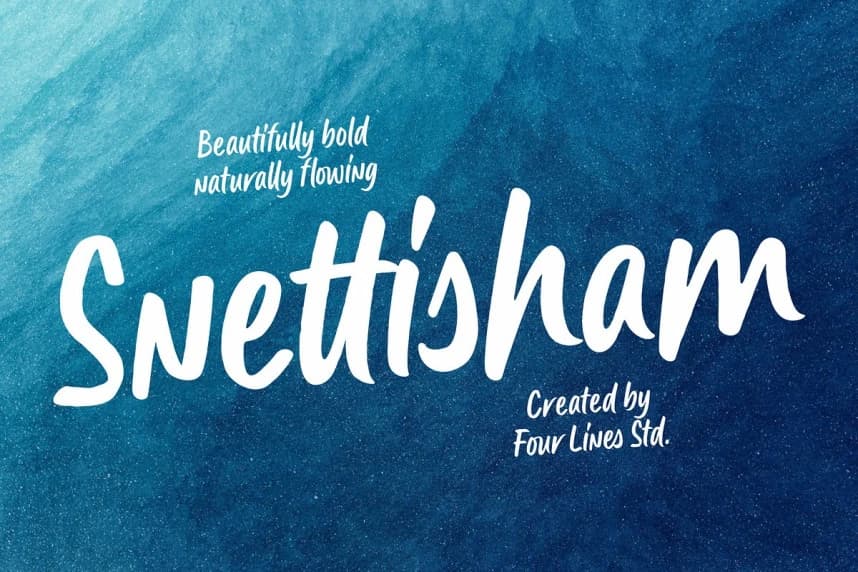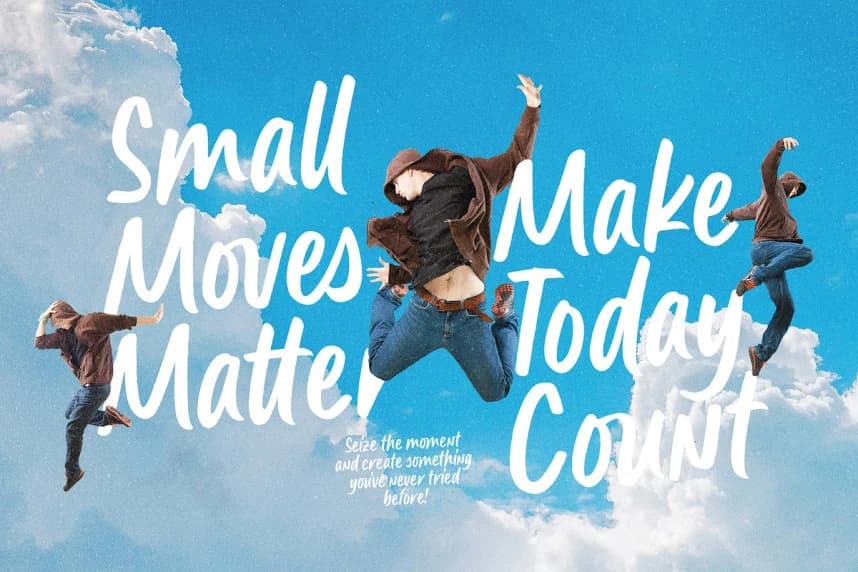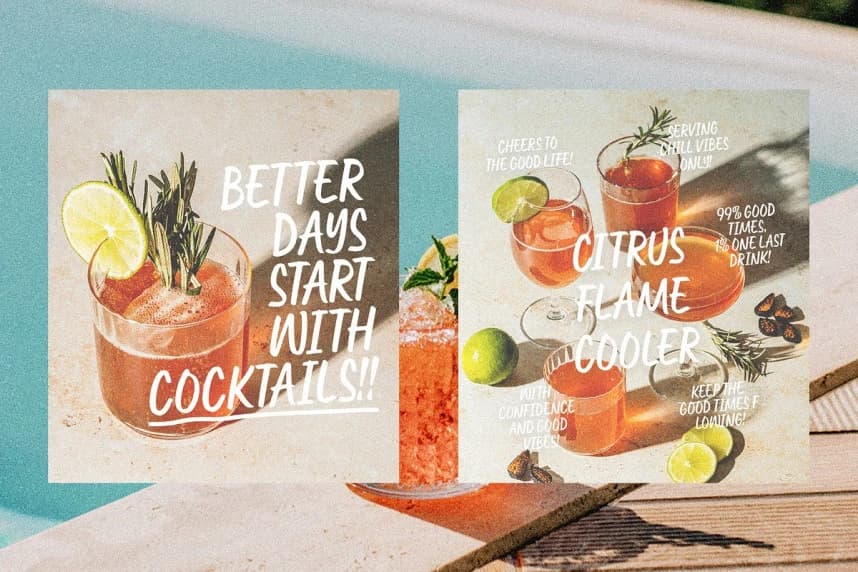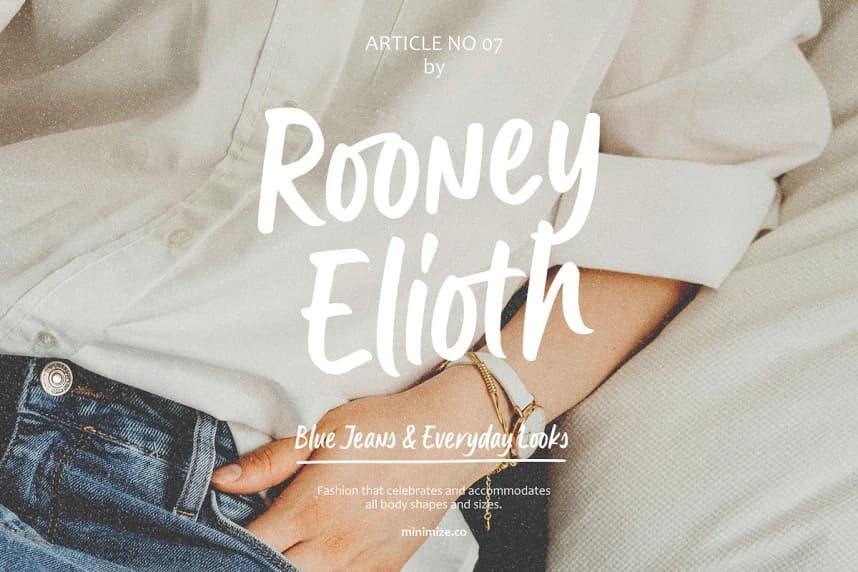
Snettisham Script Font
Snettisham Script Font is a bold handwritten script with a natural, smooth flow and full of character. Every letter feels lively with a casual, warm, and expressive handwritten style, making your designs look more stylish without feeling overdone.